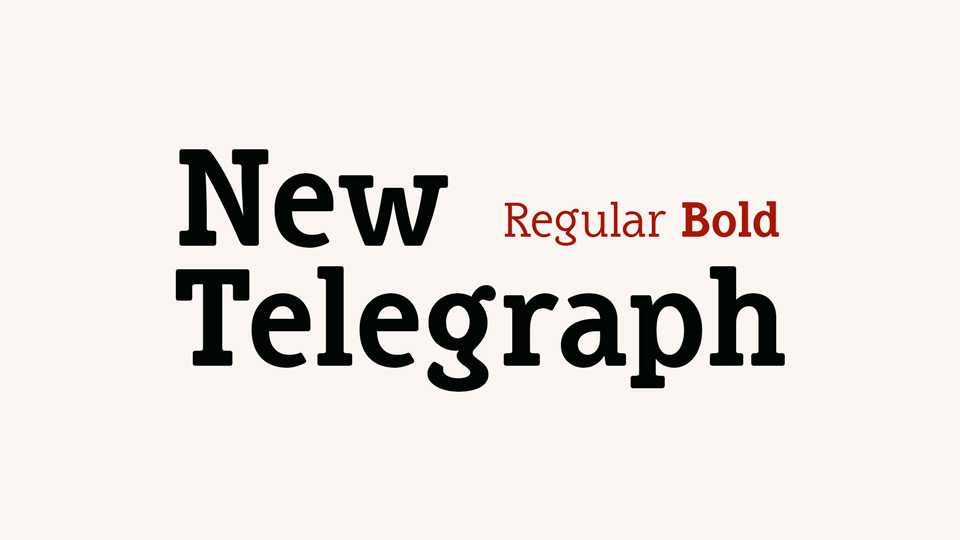
Download New Telegraph typeface, a versatile slab serif font family in two weights for daily office work. New Telegraph works great both for text and titles.
Designer: Frank Baranowski